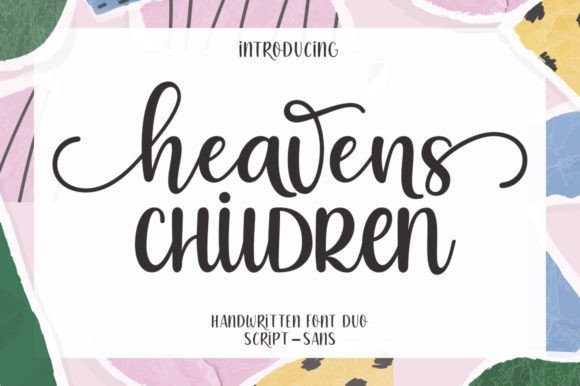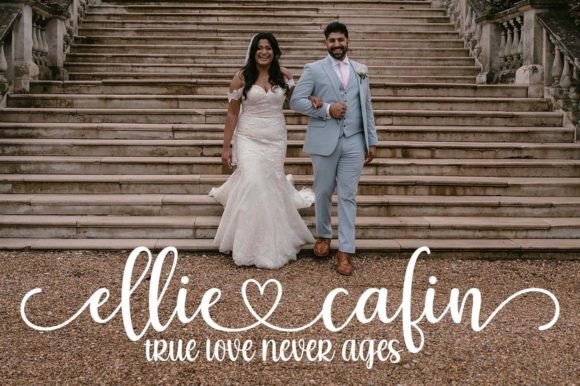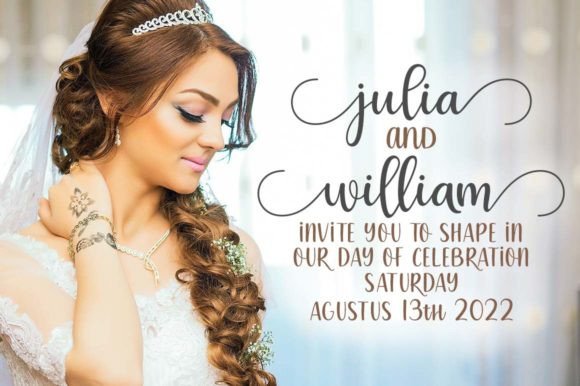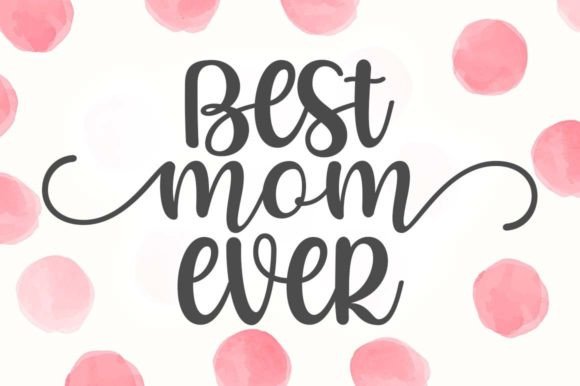
Heavens Children Duo Font
About the Heavens Children Duo Font
Add a touch of class to your work with the Heavens Children Duo Font, a truly exceptional typeface. Heavens Children is a fun and creative duo font (sans serif and script). It has beautiful and well-balanced characters and as a result, it matches a wide pool of designs. Add it to your most creative ideas and notice how it makes them come alive!
Heavens Children Duo Font excels in projects requiring a playful yet sophisticated touch. It’s ideal for headlines, logos, short-form text on packaging or posters, and social media graphics where its expressive script and clean sans-serif complement each other. Avoid using it for lengthy body text or UI elements; the script’s ornate nature hinders readability in extended passages.
This font pair’s personality is best described as cheerful and modern. It works exceptionally well for brands targeting a younger demographic or those with a lighthearted, creative image. Think children’s products, artisanal food brands, or event invitations.
For effective pairings, consider a geometric sans-serif like Montserrat for a balanced contrast, or a classic serif such as Playfair Display for a touch of elegance. A clean, neutral sans-serif like Lato could also provide a stable backdrop for the script’s flourish.
Heavens Children Duo Font Usage Examples
Heavens Children Duo Font Example